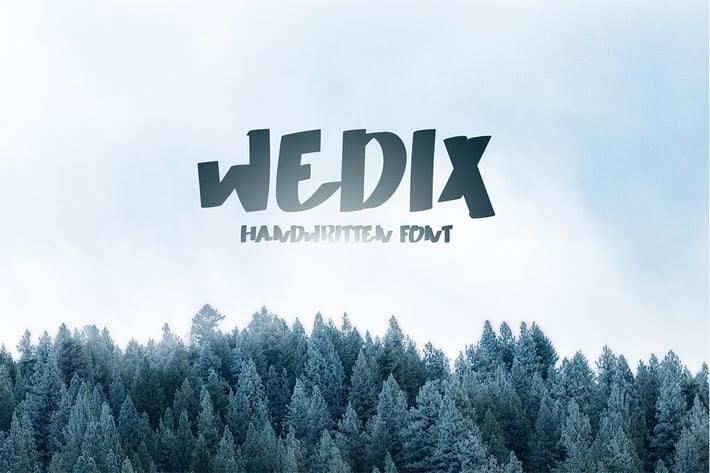
Wedix - Handwritten Font
Introducing Wedix, an modern and simple handwritten font.
So perfect for you who needs a typeface for logo designs, magazine, social media, brochure, and many more.